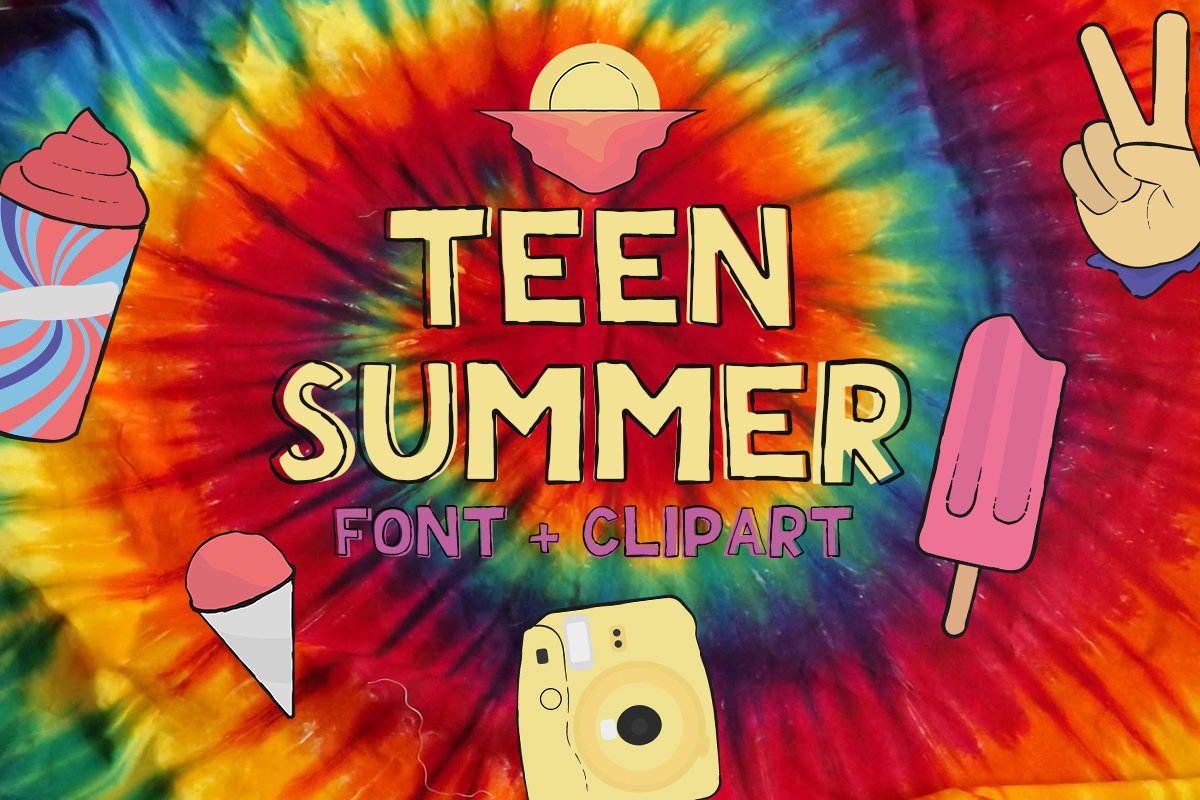
Teen Summer - Layered and Cliparts
TeenSummer
TeenSummer-Outline
Summer time is upon us, so i decided to create the Teen Summer Layered font. This simple handmade font will give your project the fun, young look you want. You can use them on their own or layer them to get the full effect. The best part is that it doesn't come alone, the clipart is the perfect compliment for your creations.